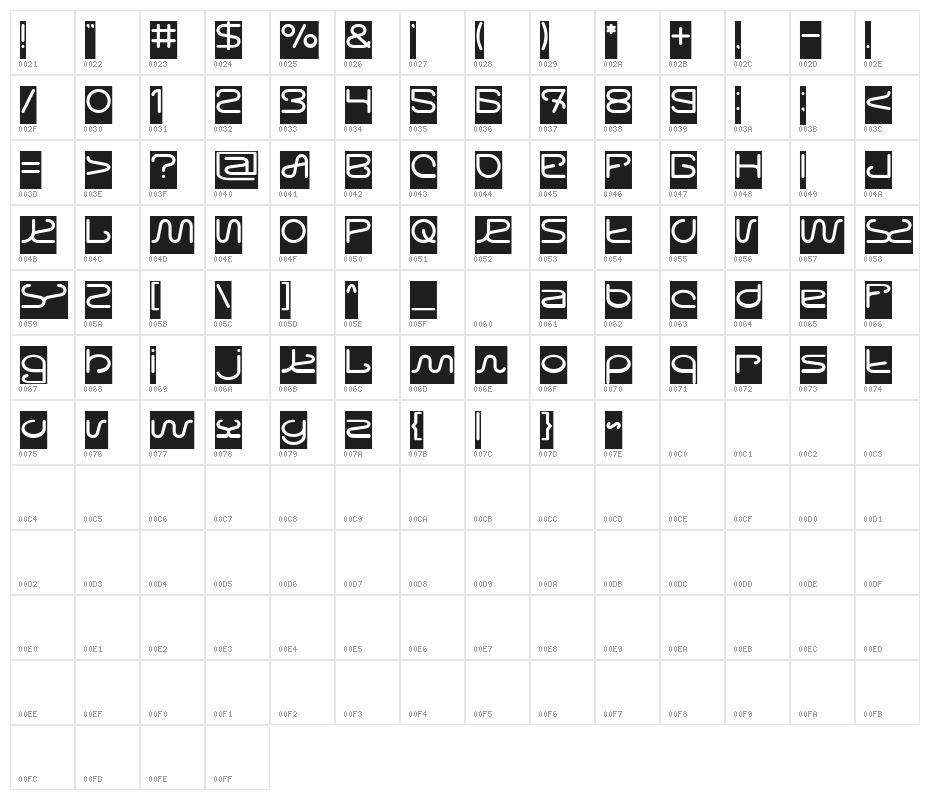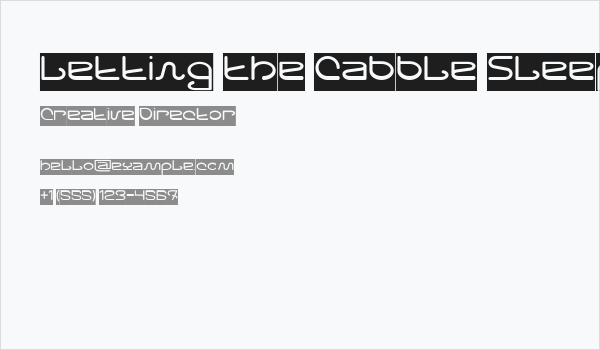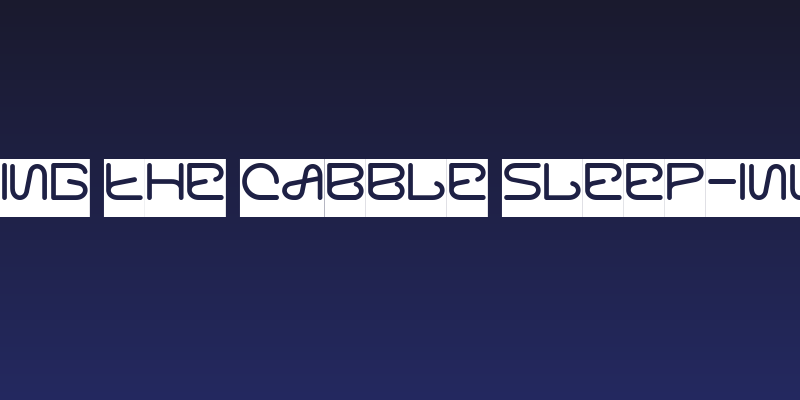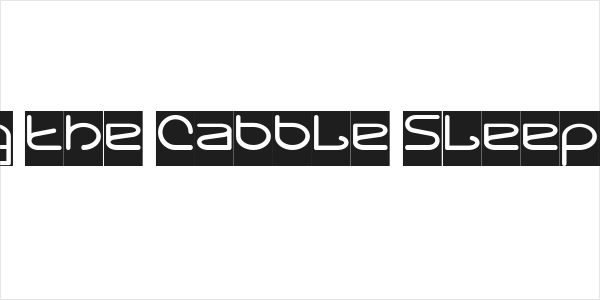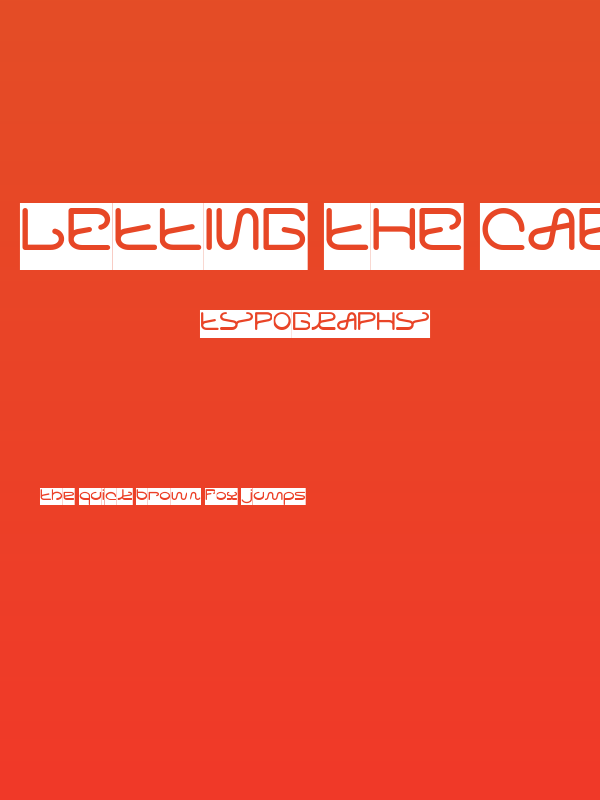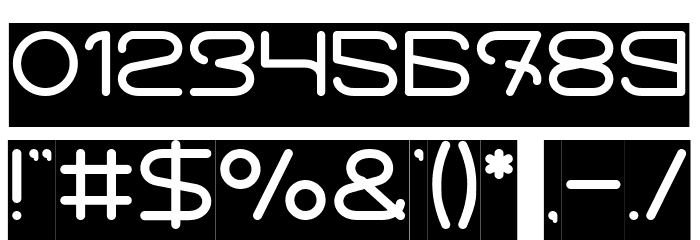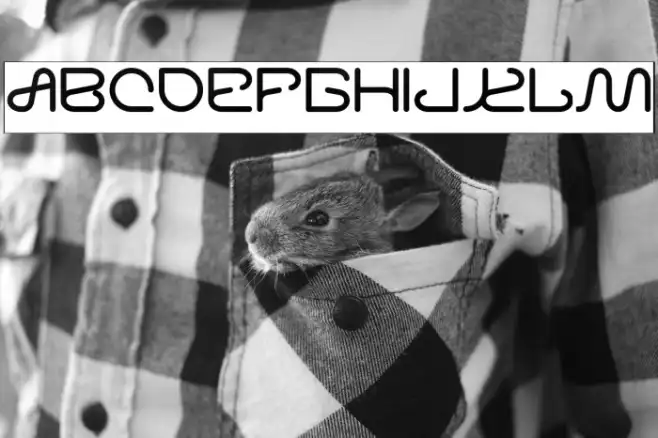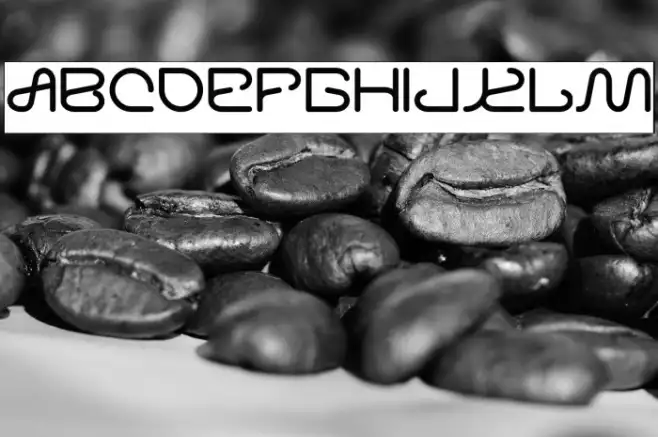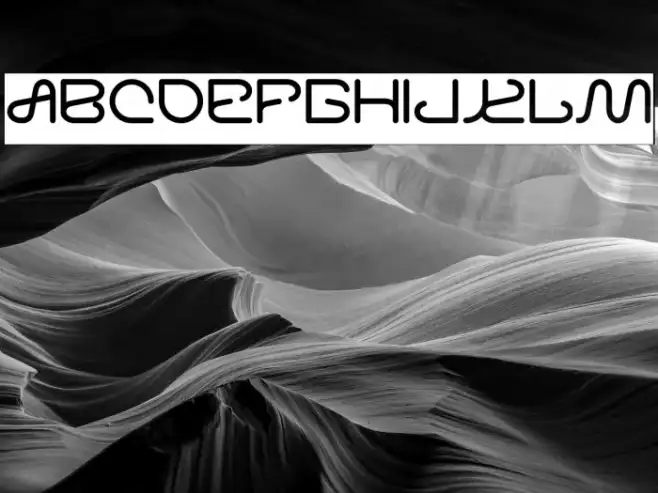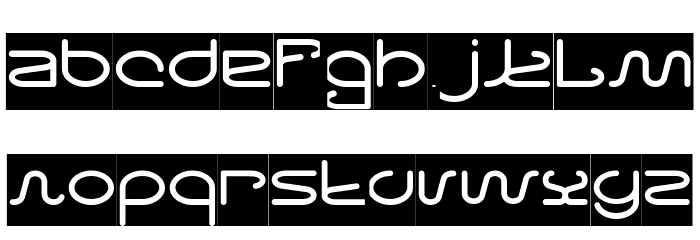
Letting The Cabble Sleep-Invers Font
Letting The Cabble Sleep-Invers Description
This font features a unique and modern design with a playful twist. The characters are constructed with smooth, continuous lines that create a sense of fluidity and motion. Each letter is enclosed within a square, giving it a structured appearance while maintaining an artistic flair. The uppercase and lowercase letters share a consistent style, with rounded edges and a uniform stroke width. Numbers and special characters are designed to match the overall aesthetic, ensuring a cohesive look across all text. This font is ideal for projects that require a contemporary and creative touch.